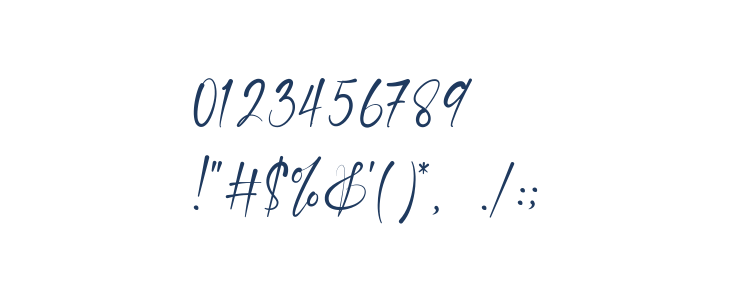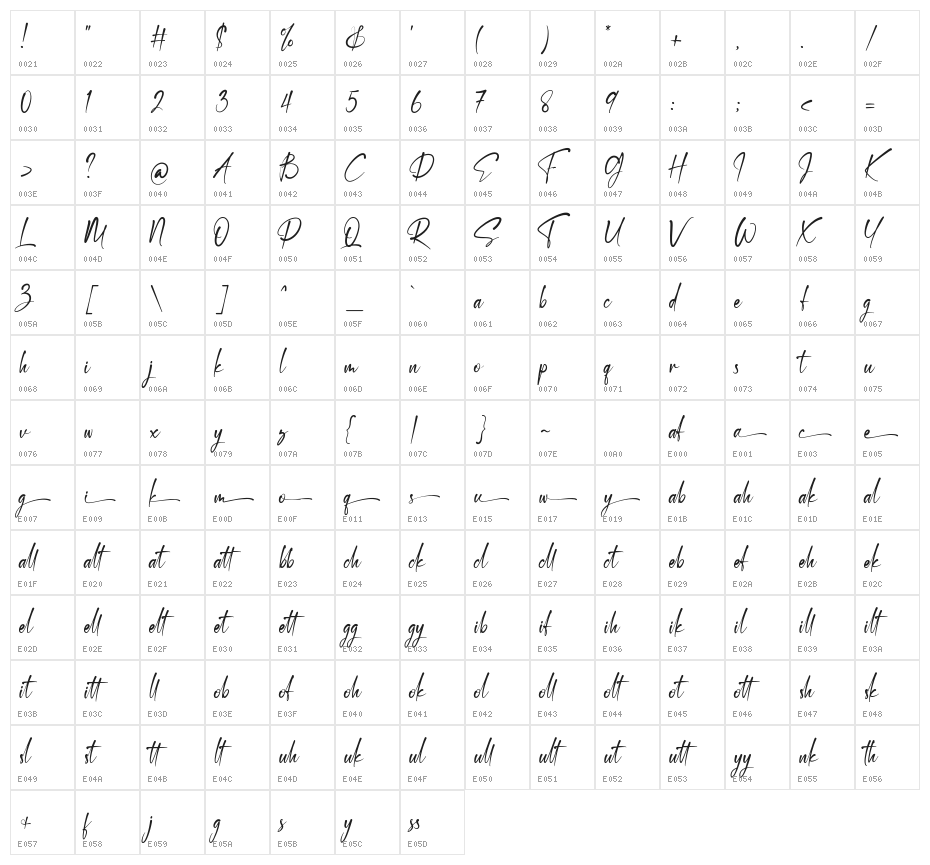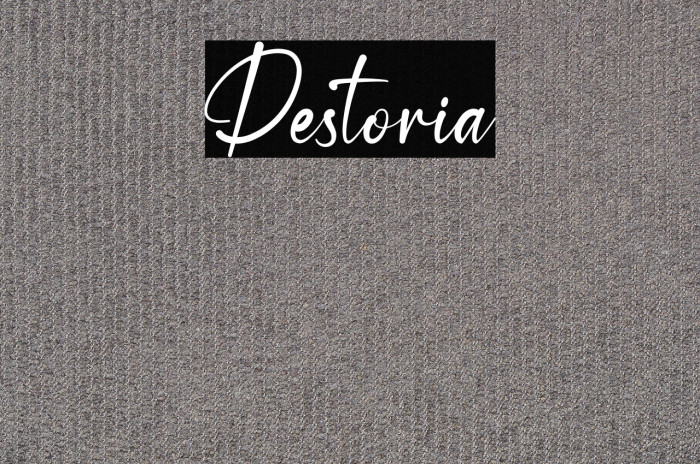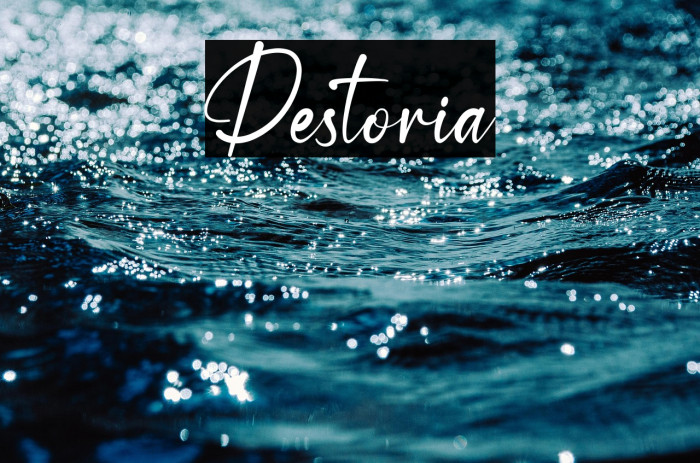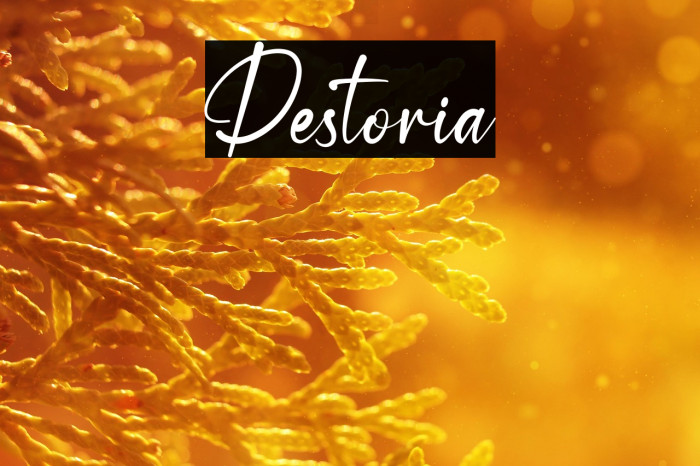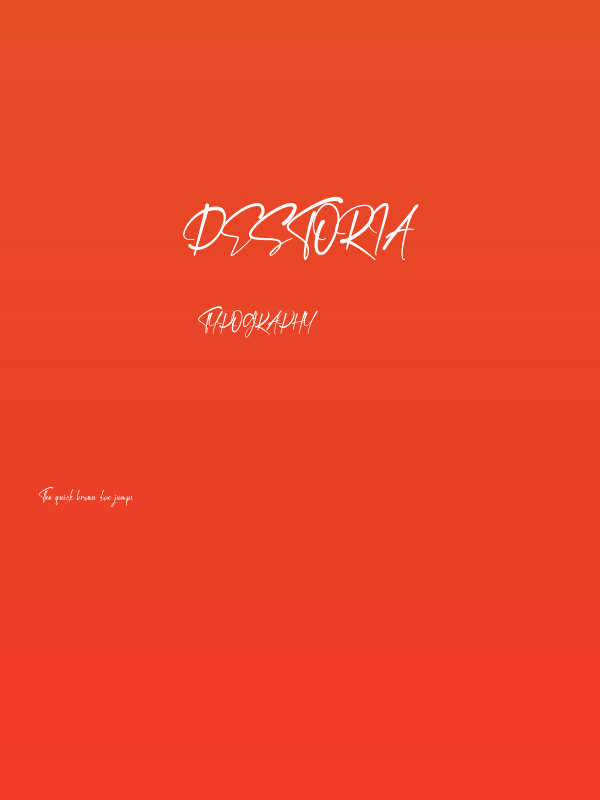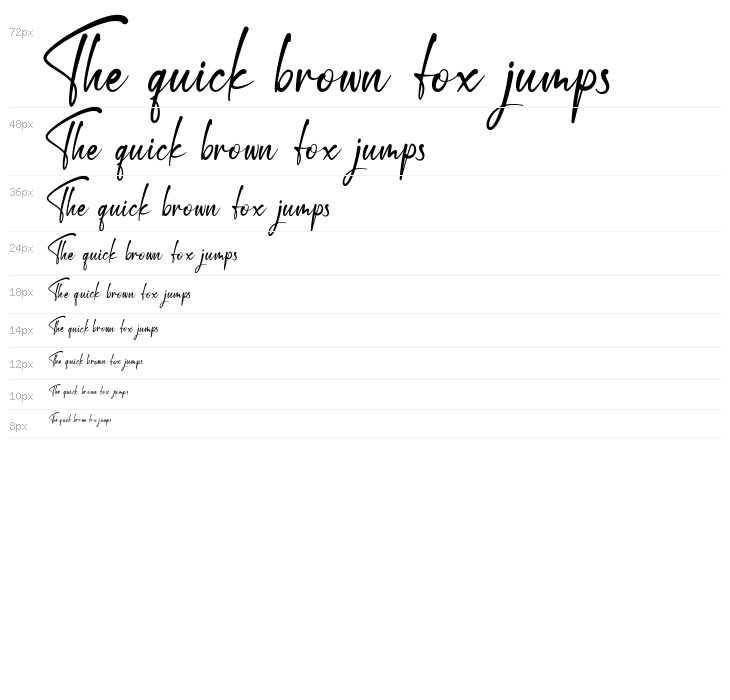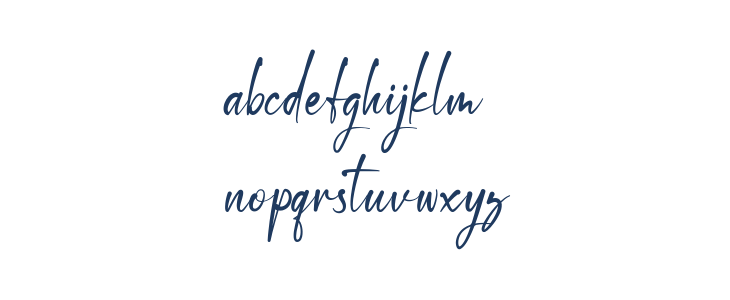
Destoria Font
Destoria Description
This font exudes a dynamic and expressive style, characterized by its flowing, cursive script that mimics the fluidity of natural handwriting. The uppercase letters are bold and sweeping, with dramatic flourishes that give a sense of movement and elegance. The lowercase letters maintain a consistent style, offering a harmonious balance between readability and artistic flair. The numerals are distinct and clear, complementing the overall aesthetic. Special characters are integrated seamlessly, enhancing the font's versatility. This font is ideal for projects that require a personal touch, such as invitations, branding, and creative designs.
| Use Case | Logos, Invitations, Artistic designs |
| Proposed Projects | Ideal for wedding invitations, personal branding, greeting cards, and artistic projects. |